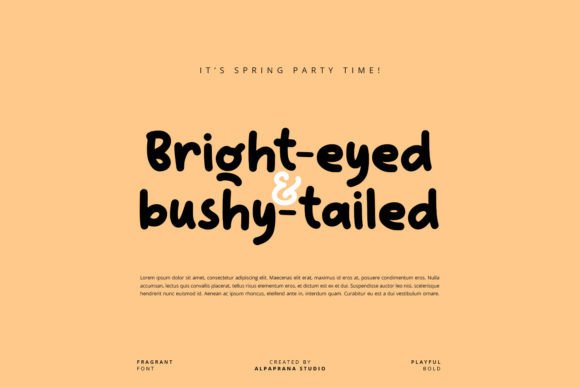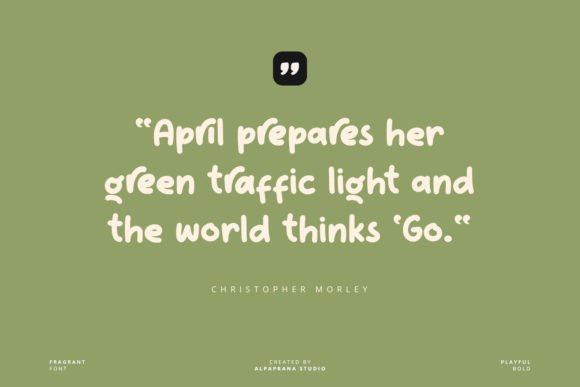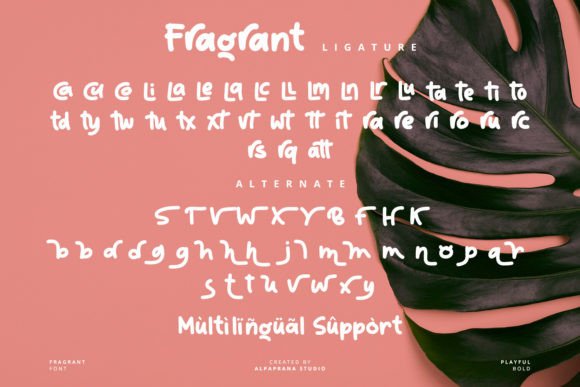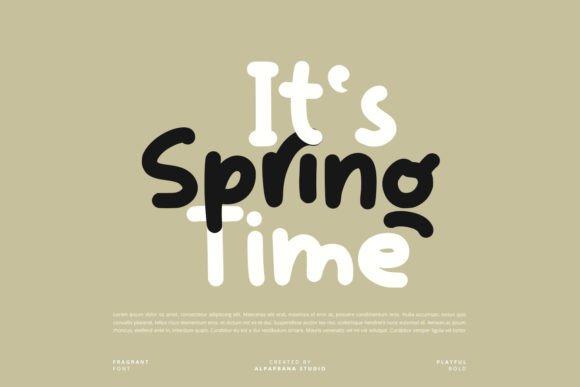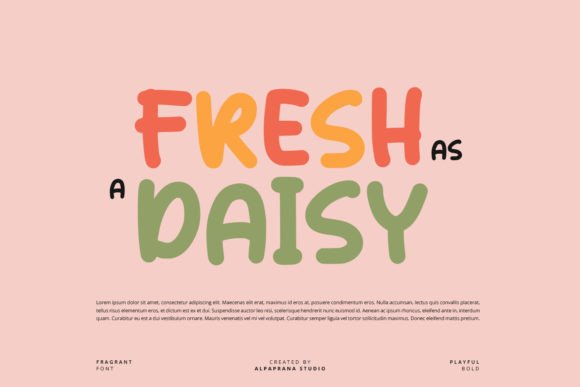
Unlock the Scent of Creativity with Fragrant Font
Have you ever found yourself in the midst of a creative block, staring at a blank canvas or page, waiting for inspiration to strike? It’s a moment we’ve all been there, right? But then, something sparks – a color combination, a typography choice, or a font that just feels ‘right.’ For me, that moment came when I stumbled upon the charming Fragrant Font.
This sweet and friendly handwritten font is more than just a pretty face – it’s a versatile tool that can elevate any design project. With its natural, unique style, Fragrant Font is the perfect companion for designers looking to add a touch of personality to their work. Whether you’re creating a logo, a brochure, or a social media post, this font is sure to bring a smile to your face and a touch of warmth to your design.
- Unique Characteristics: Fragrant Font features a unique blend of modern and traditional design elements, making it an ideal choice for users who want a font that stands out from the crowd.
Fragrant Font Review
As a designer, I was excited to dive into the Fragrant Font, but I have to say, my experience was a mixed bag. Here’s my honest take.
- The Fragrant Font has a beautiful, unique aesthetic that sets it apart from other fonts. It’s perfect for brands that want to stand out and make a statement.
- The font is highly customizable, with a range of options for adjusting size, color, and style. This makes it easy to integrate into any design project.
- The font is also highly legible, even at smaller sizes. This is a must-have for any font, as it ensures that your text is easy to read and understand.
- The Fragrant Font is not suitable for body text, as it’s a bit too ornate and attention-grabbing. It’s best used for headings, titles, and other attention-grabbing elements.
- The font is not as versatile as some other options on the market. While it’s great for certain designs, it may not be the best choice for more minimalist or straightforward projects.
Overall, I’d give the Fragrant Font 3.5 out of 5 stars. While it’s a beautiful and unique font, its limitations make it less versatile than some other options. However, if you’re looking for a font that will make a statement and add some flair to your designs, the Fragrant Font is definitely worth considering.
Common Use Cases for Fragrant Font
Fragrant Font is commonly used for:
- Designing marketing materials, such as brochures and flyers.
- Creating social media graphics and posts.
- Designing logos and branding materials